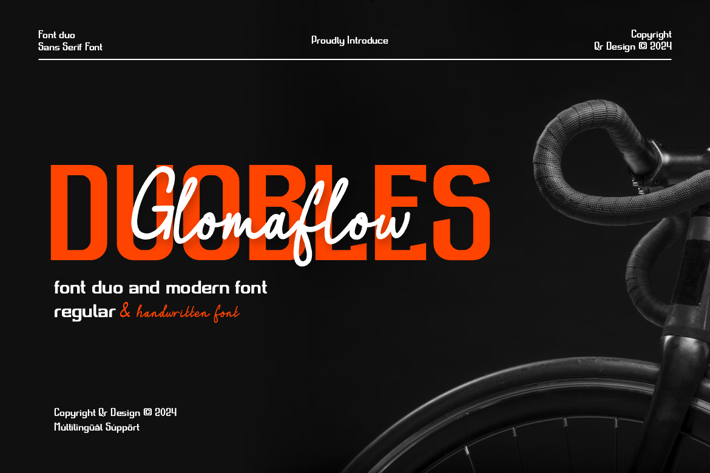
Duobles Glomaflow - Condensed & Font Duo
Duobles Glomaflow Font is a sans serif and minimal logo font.
The font is suitable for any branding project like stylish, poster, logo, sport, and many more.
+ Uppercase & Lowercase
+ Ligatures & Alternate
+ Numeral & Punctuations
+ Multilingual Support
+ Extended Character Set